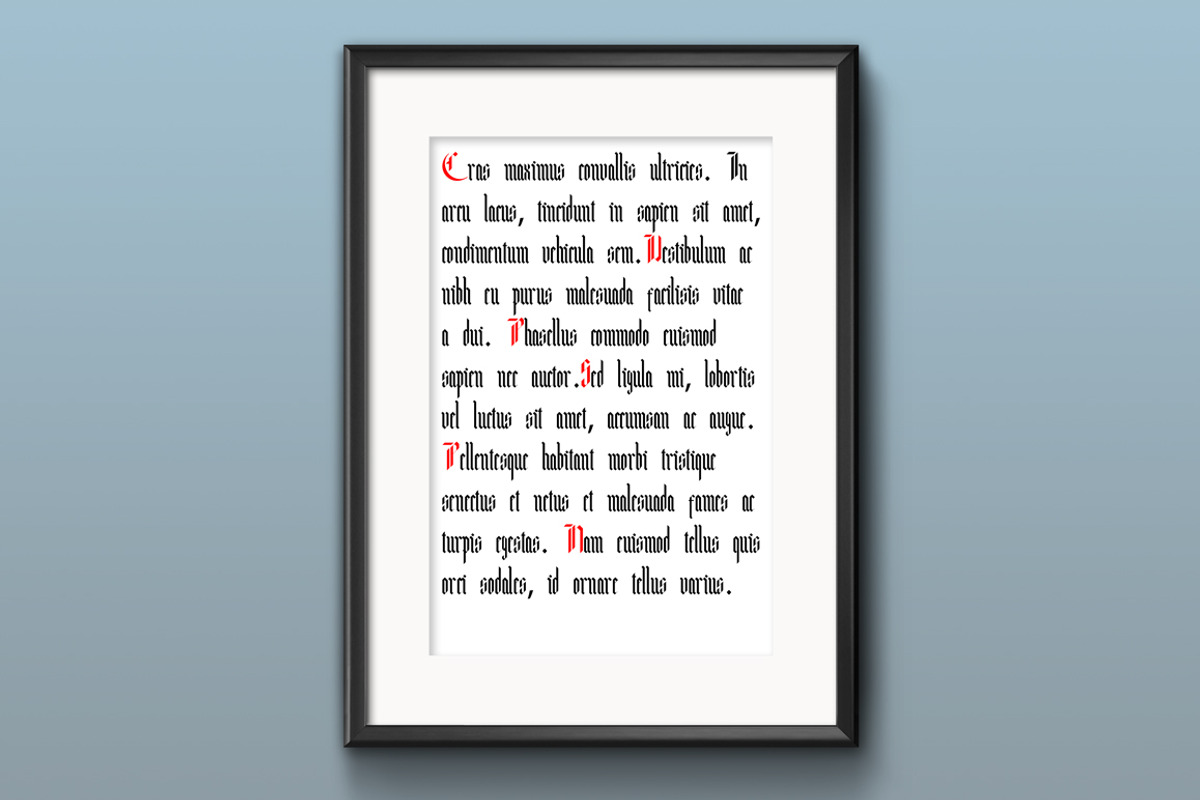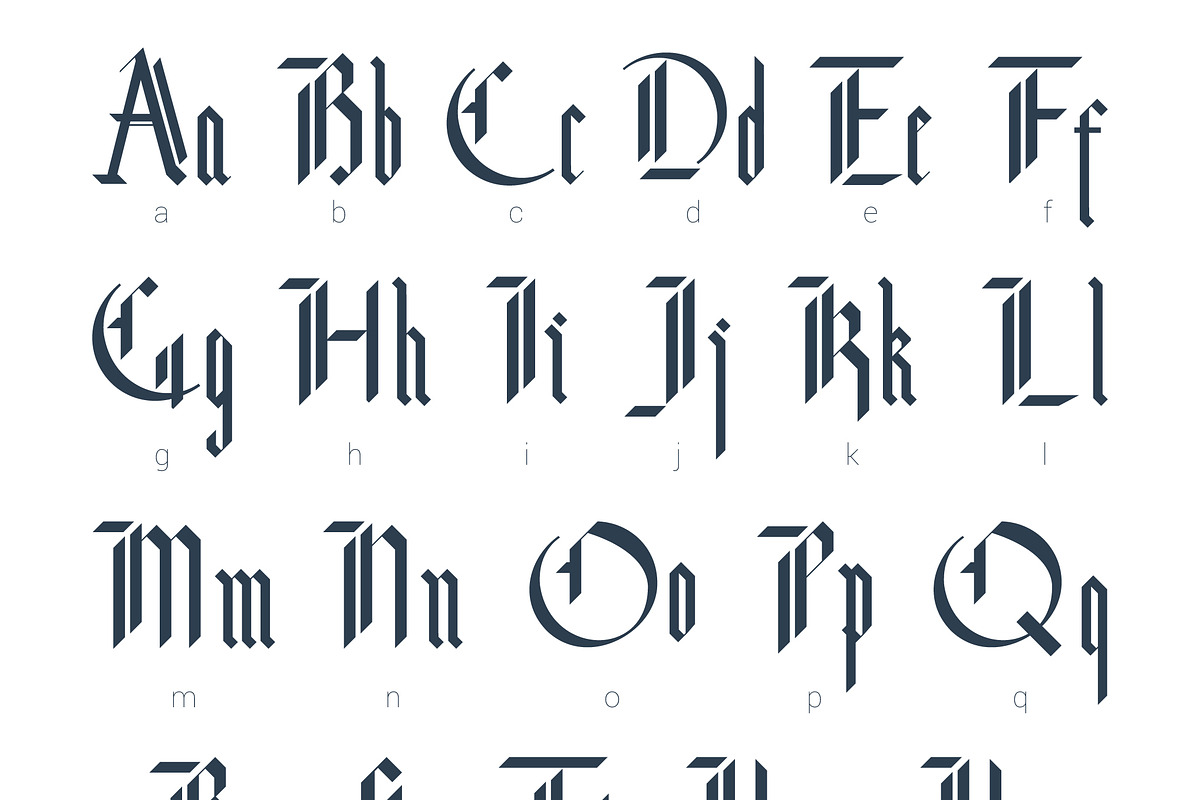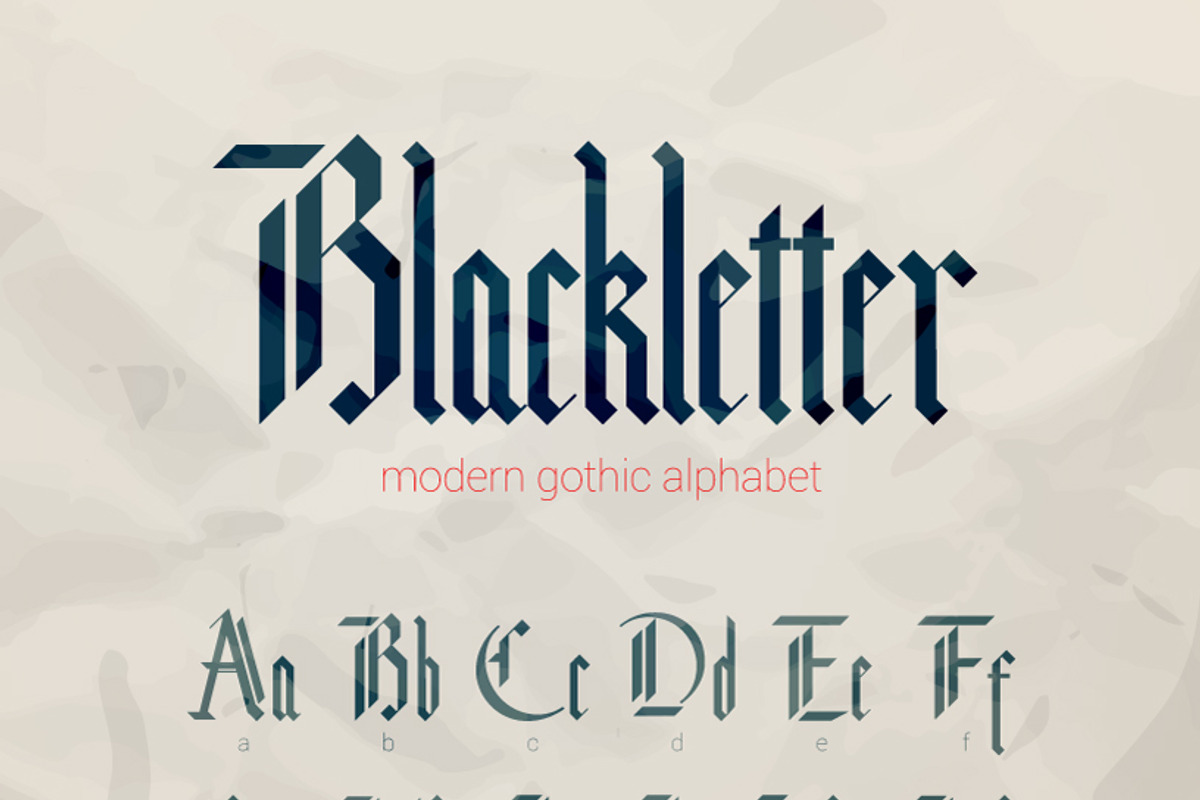
Blackletter modern gothic font.
Blackletter modern gothic font. by Sergey Mironov's store is a font selected for branding, posters, packaging, typography.
Why Blackletter modern gothic font. is worth a look
Blackletter modern gothic font. by Sergey Mironov's store fits naturally into Branding, posters, packaging, typography.